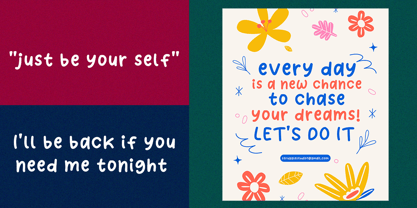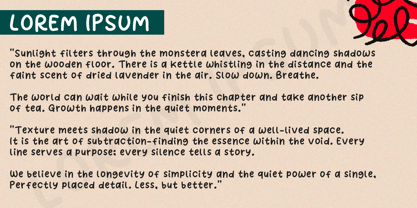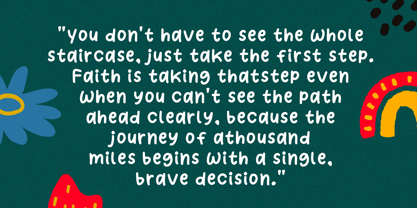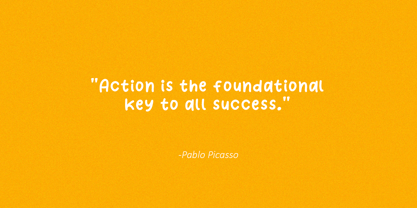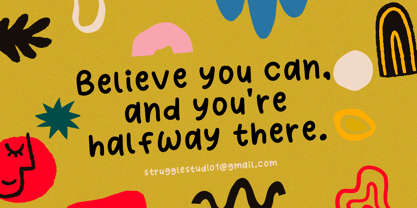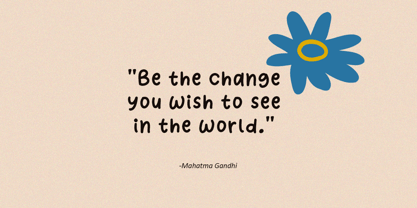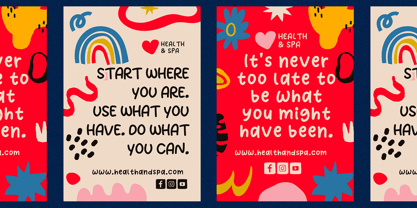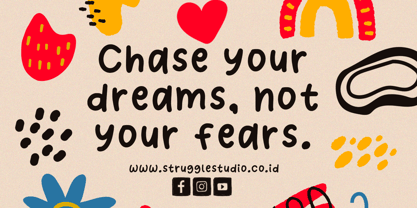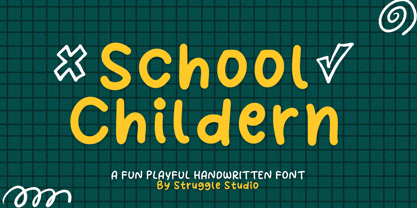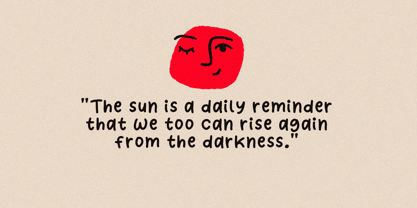
School Childern
by Struggle Studio
The School Childern Font Family was designed by Andri Kurniawan and published by Struggle Studio. School Childern contains 1 styles. More about this family
Inject a dose of joy and creativity into your projects with School Childern! Designed by Struggle Studio, this font perfectly captures the honest, effortless, and energetic essence of a child’s handwriting. With its rounded shapes and organic lines, School Childern provides a warm, personal, and friendly atmosphere. It is the ideal choice for any design that requires a "human touch" while maintaining a professional and clean look.
Designers: Andri Kurniawan
Foundry: Struggle Studio